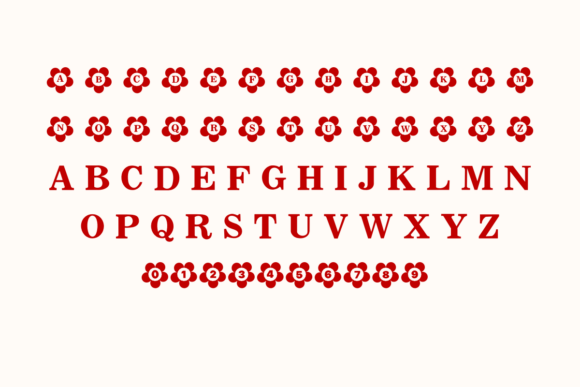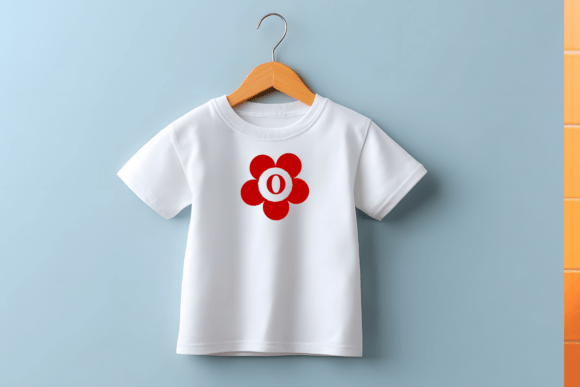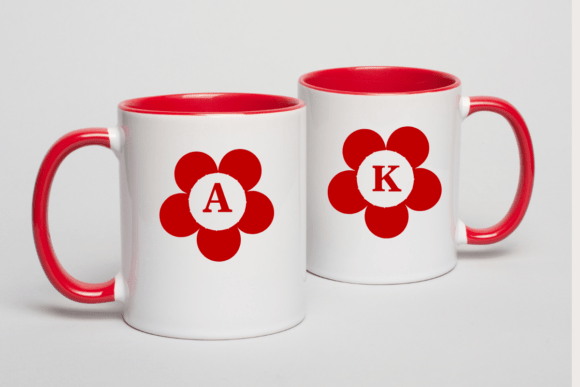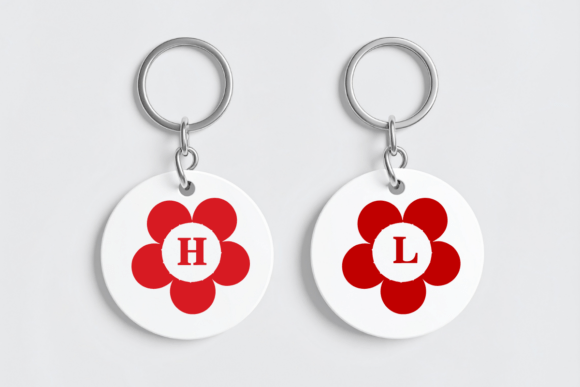
Introducing Flower Cute Font: The Perfect Addition to Your Creative Projects
Are you a designer, crafter, or DIY enthusiast looking for a unique and charming font to add a personal touch to your projects? Look no further than Flower Cute Font! This lovely decorative font is sure to bring a smile to your face and inspire your creativity.
What is Flower Cute Font?
Flower Cute Font is a beautiful, hand-designed font that features adorable flower motifs and delicate lines. The font is perfect for a variety of creative projects, including scrapbooking, card making, journaling, and more. Its whimsical design and playful feel make it an ideal choice for anyone looking to add a touch of sweetness to their work.
Key Features of Flower Cute Font
- Unique and Exclusive Design: Flower Cute Font boasts a distinctive design that sets it apart from other fonts. Its intricate flower motifs and curly lines create a charming and feminine look that’s sure to captivate your audience.
- High-Quality and Scalable: This font is designed to be high-quality and scalable, ensuring that it looks great in any size or format. Whether you’re creating a digital project or printing out a physical copy, Flower Cute Font will always look stunning.
- Easily Customizable: With Flower Cute Font, you can easily customize your text to fit your project’s style and theme. Experiment with different colors, sizes, and arrangements to create a unique look that’s all your own.
- Perfect for Various Projects: This versatile font is suitable for a wide range of creative projects, from scrapbooking and card making to journaling and crafting.
How to Use Flower Cute Font in Your Projects
Using Flower Cute Font in your projects is easy and fun! Here are a few ideas to get you started:
- Scrapbooking: Add a touch of elegance to your scrapbook pages with Flower Cute Font. Use it to title your pages, label your photos, or create beautiful journaling.
- Card Making: Create one-of-a-kind greeting cards with Flower Cute Font. Its whimsical design makes it perfect for birthday cards, thank-you cards, and more.
- Journaling: Add a personal touch to your journal entries with Flower Cute Font. Use it to create inspiring headers, decorate your pages, or highlight important events.
- Crafting: From DIY signs to home decor projects, Flower Cute Font is the perfect addition to any crafting project. Use it to add a touch of personality to your creations.
Why Choose Flower Cute Font?
With so many fonts available, why choose Flower Cute Font? Here are just a few reasons why this font stands out:
- Unique and Eye-Catching: Flower Cute Font is a true showstopper. Its adorable flower motifs and delicate lines make it a standout in any project.
- Easily Readable: Despite its decorative design, Flower Cute Font is surprisingly easy to read. This makes it perfect for both digital and print projects.
- Time-Saving: With Flower Cute Font, you can create beautiful, professional-looking projects in no time. Its high-quality design saves you time and effort, allowing you to focus on the creative aspects of your project.
Flower Cute Font is a lovely decorative font that’s sure to bring a touch of charm and personality to your creative projects. Its unique design, high-quality construction, and ease of use make it an ideal choice for designers, crafters, and DIY enthusiasts. So why wait? Add Flower Cute Font to your creative arsenal today and enjoy the results!
Flower Cute is a lovely decorative font. Add it to your creative ideas and enjoy the results!